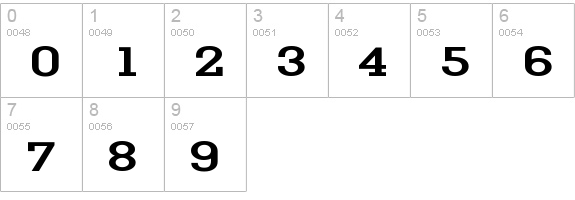
Geo Extended Bold is a strong, high-contrast, extended-width variant in the Geo typeface family \xE2\x80\x94 well suited to headlines, attention-grabbing titles, and strong calls-to-action.